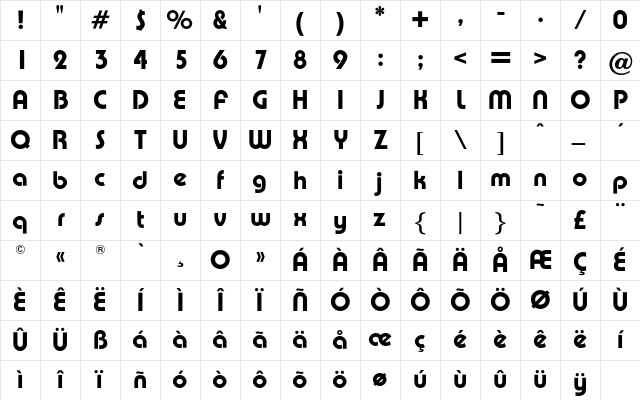
PumpOpti Medium
Design Context for PumpOpti
PumpOpti is a composed and adaptable typeface that performs quietly and consistently across a wide range of design contexts.